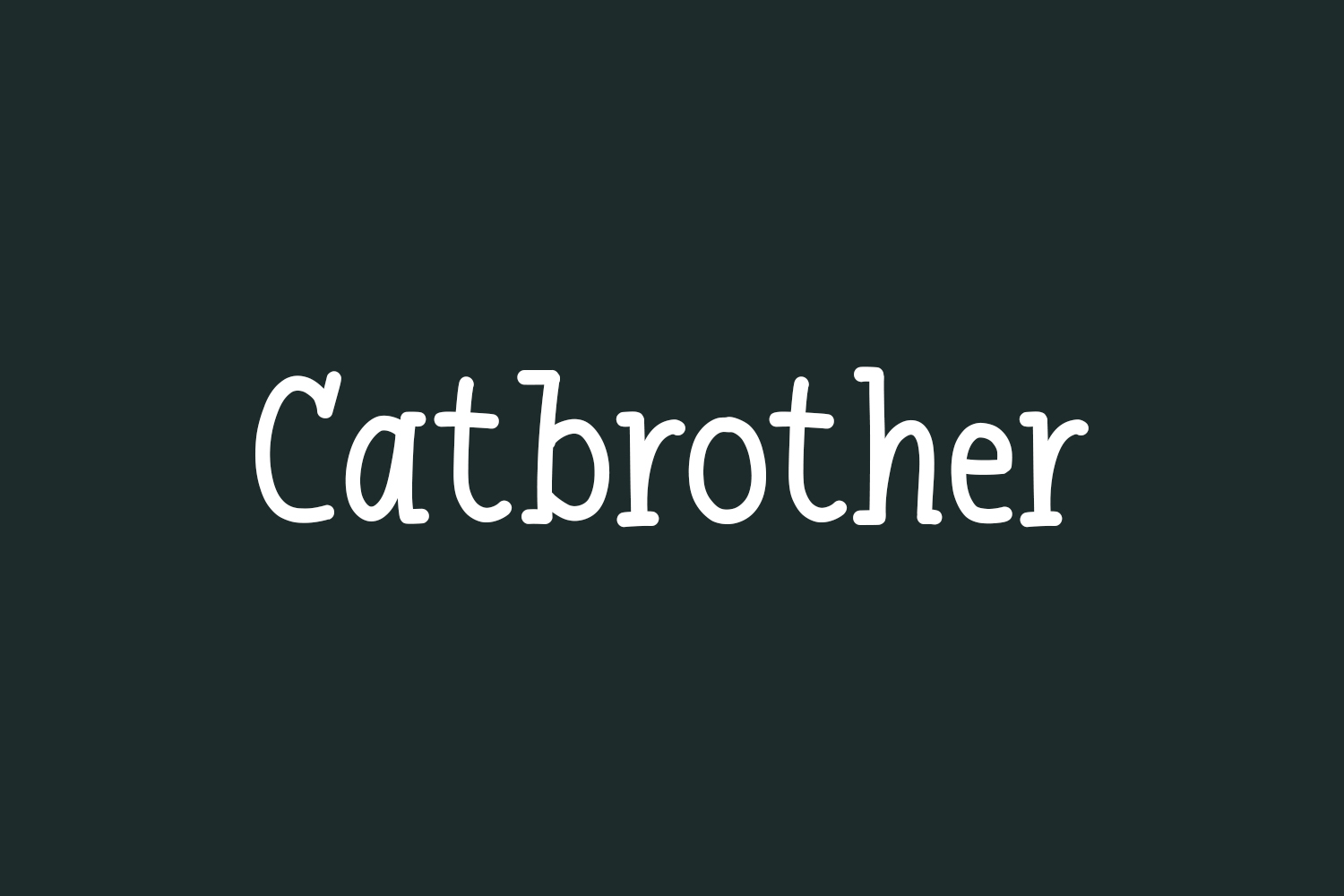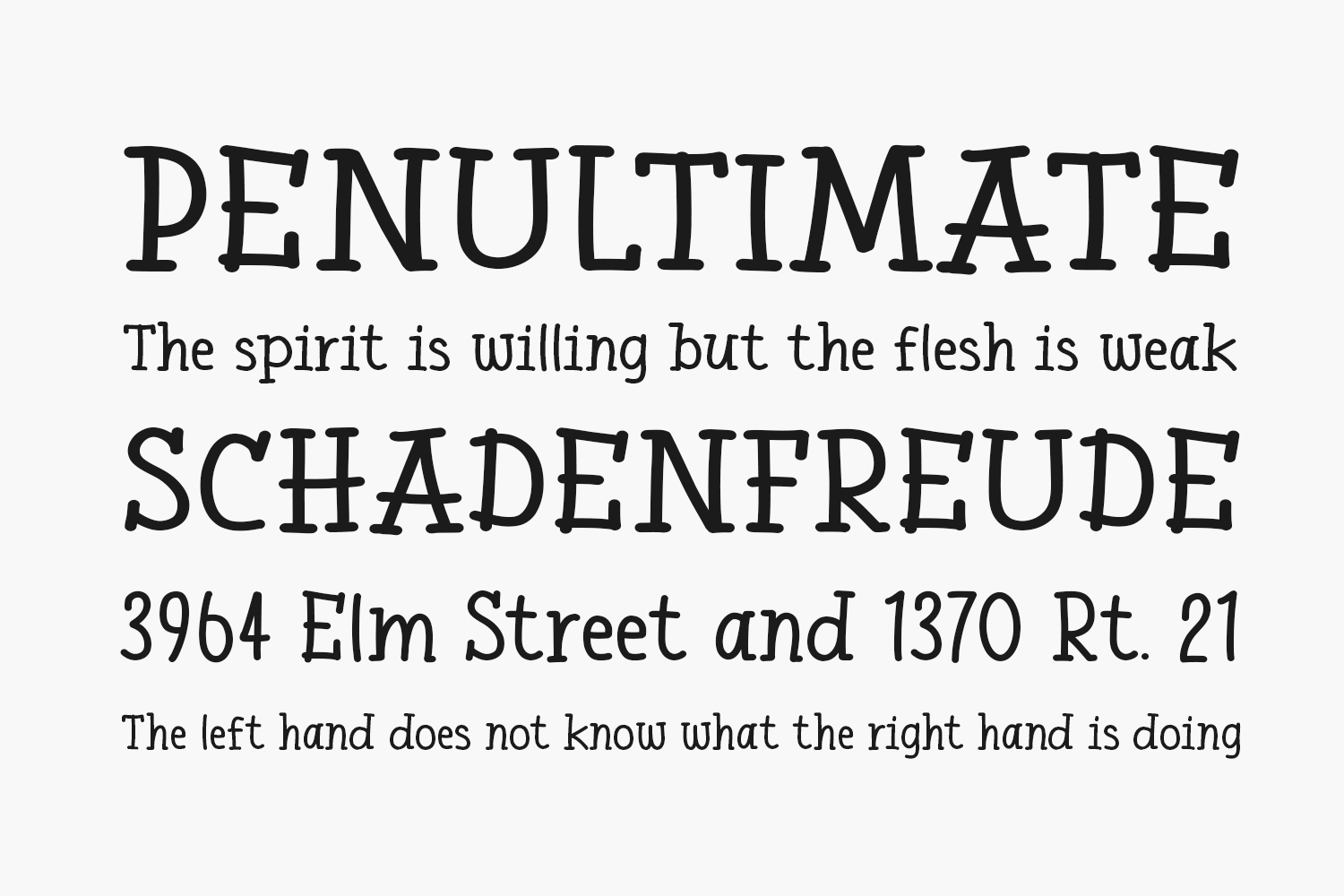
Introducing Catbrother Free Font, a contemporary handwritten font tailor-made for posters, logos, magazines, book covers, banners, and beyond! Elevate your designs with this remarkable font, versatile enough to complement a vast array of projects. Unleash your creativity and watch as Catbrother effortlessly enhances your ideas, making them truly stand out from the crowd. Download the font for free if you need it for personal or commercial use.